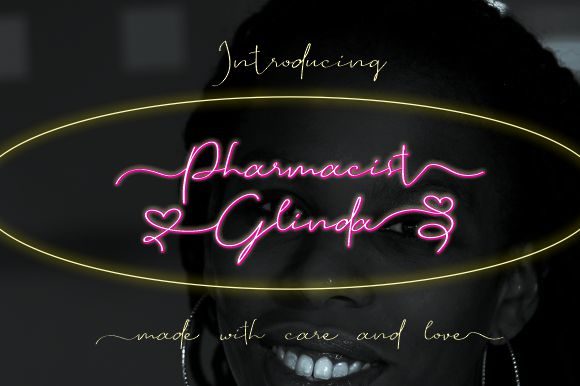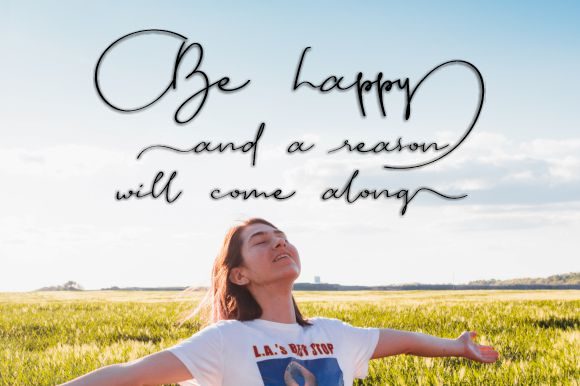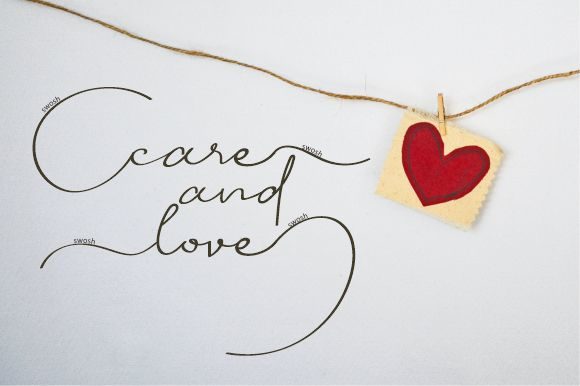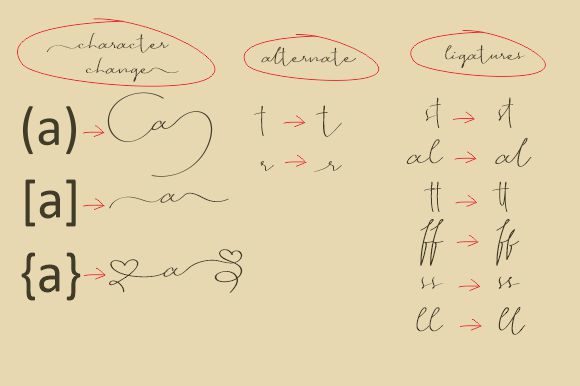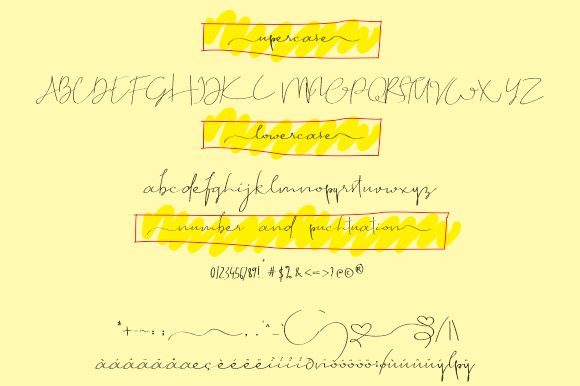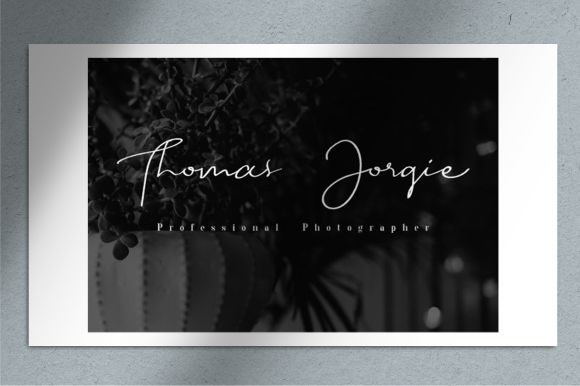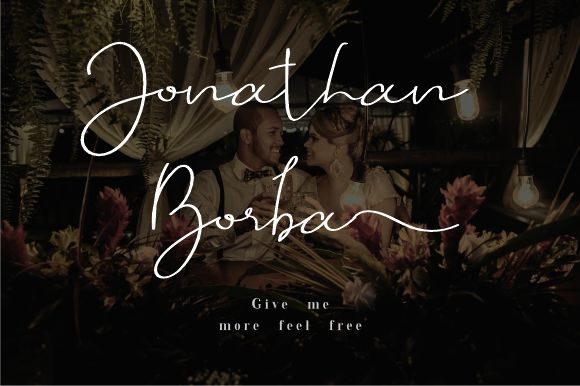
Pharmacist Glinda Font
Pharmacist Glinda feels equally charming and elegant. Whether you’re looking for fonts for Instagram or calligraphy scripts for DIY projects, this font will turn any creative idea into a true piece of art!